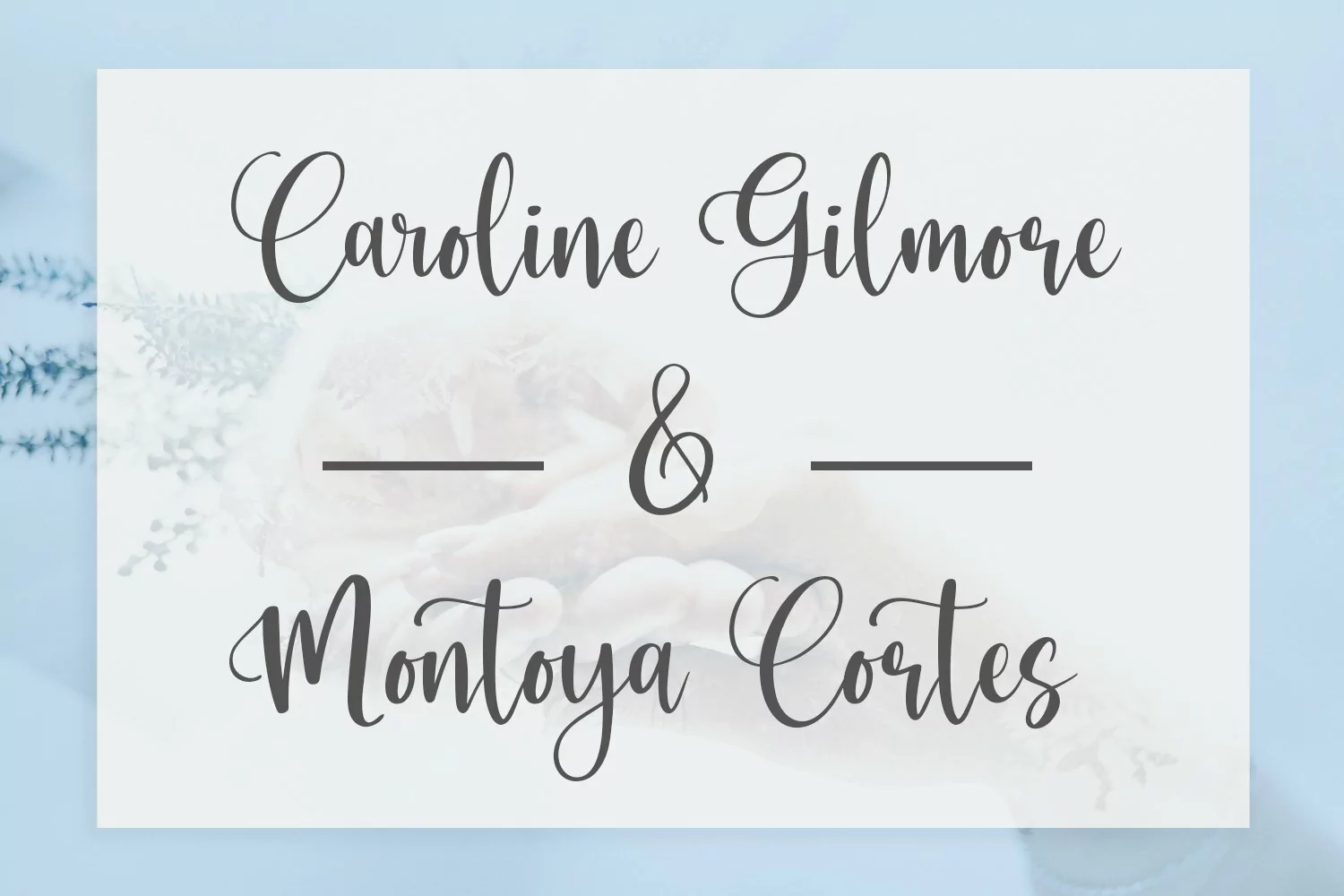
Berthalisa is a modern calligraphy font with authentic and casual feels. It will be perfectly used for Branding, Logo Design, Lettering, Logotype, Clothing, Poster, magazine, packaging, posters, shopping bags, t-shirts, book covers, photography, special events and other design project.